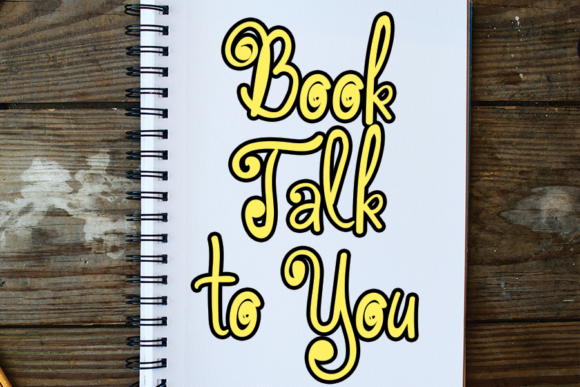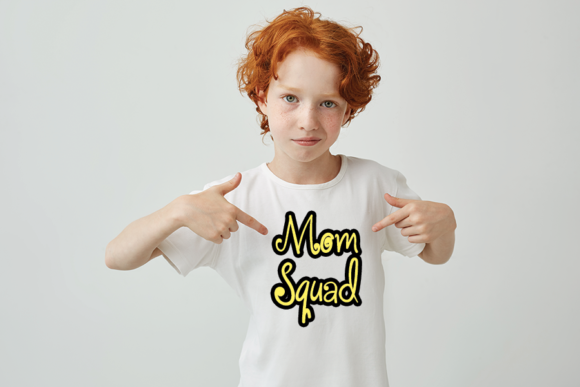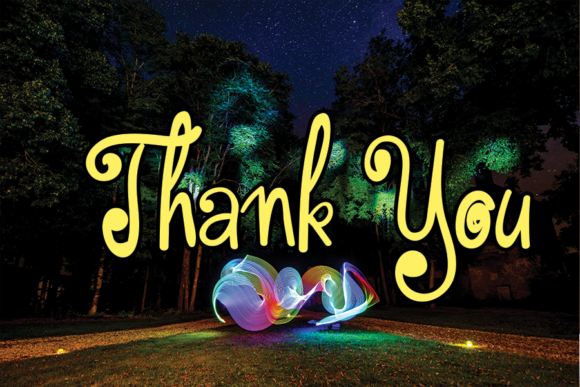
Introducing Happy Night Font: Add a Touch of Whimsy to Your Designs
Are you tired of using the same old fonts in your designs? Do you want to add a touch of personality and whimsy to your creations? Look no further than Happy Night Font, a chic and refreshing handwritten font that’s perfect for designers and crafters alike. In this article, we’ll take a closer look at Happy Night Font, its features, and how you can use it to elevate your designs.
What is Happy Night Font?
Happy Night Font is a beautifully crafted handwritten font that’s designed to bring a smile to your face. With its flowing lines, curly tails, and playful strokes, this font is perfect for adding a touch of whimsy to your designs. Whether you’re working on a branding project, a wedding invitation, or a social media graphic, Happy Night Font is sure to make your design stand out.
Features of Happy Night Font
So, what makes Happy Night Font so special? Here are just a few of its key features:
- Handwritten with love: Happy Night Font is carefully crafted with a handwritten touch, giving it a warm and personal feel.
- Whimsical and playful: With its curly tails and playful strokes, this font is perfect for designs that need a touch of personality.
- Chic and refreshing: Happy Night Font has a modern and stylish feel that’s perfect for designs that need a bit of sophistication.
- Easy to read: Despite its playful nature, Happy Night Font is still easy to read, making it perfect for body text and headlines.
Who is Happy Night Font for?
Happy Night Font is perfect for designers and crafters who want to add a touch of personality to their designs. Here are just a few examples of who might benefit from using this font:
- Graphic designers: Whether you’re working on a branding project or a social media graphic, Happy Night Font is a great choice.
- Wedding planners: Add a touch of whimsy to your wedding invitations, programs, and other stationery with Happy Night Font.
- Crafters: If you’re creating handmade cards, gift tags, or other paper crafts, Happy Night Font is a great choice.
- Small business owners: Use Happy Night Font to add a personal touch to your packaging, labels, or marketing materials.
How to Use Happy Night Font
Using Happy Night Font is easy! Here are a few tips to get you started:
- Pair it with a bold font: Combine Happy Night Font with a bold font for a striking contrast.
- Use it for headlines: Happy Night Font is perfect for headlines and titles, where its playful nature can shine.
- Add some texture: Experiment with adding texture or patterns to your design to give it an extra boost of personality.
In conclusion, Happy Night Font is a beautiful and refreshing handwritten font that’s perfect for designers and crafters who want to add a touch of whimsy to their designs. With its flowing lines, curly tails, and playful strokes, this font is sure to make your design stand out. Whether you’re working on a branding project, a wedding invitation, or a social media graphic, Happy Night Font is a great choice. So why not give it a try and see how it can elevate your designs?